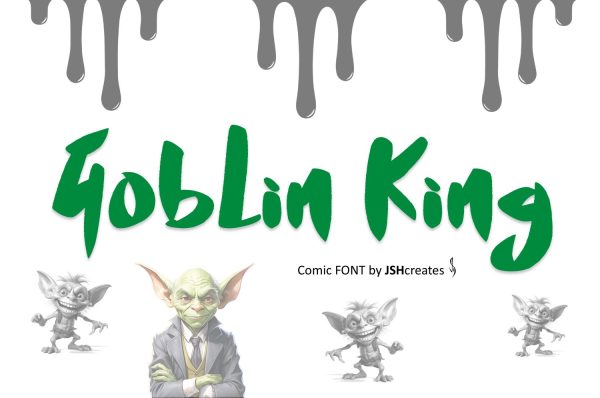
Goblin King Font
Cool comic font. “Goblin King”. Perfect for advertising and display purposes, including banners, book covers, shirts, posters, logos and much more!
Font includes all upper and lowercase letters, numbers, characters and punctuation.